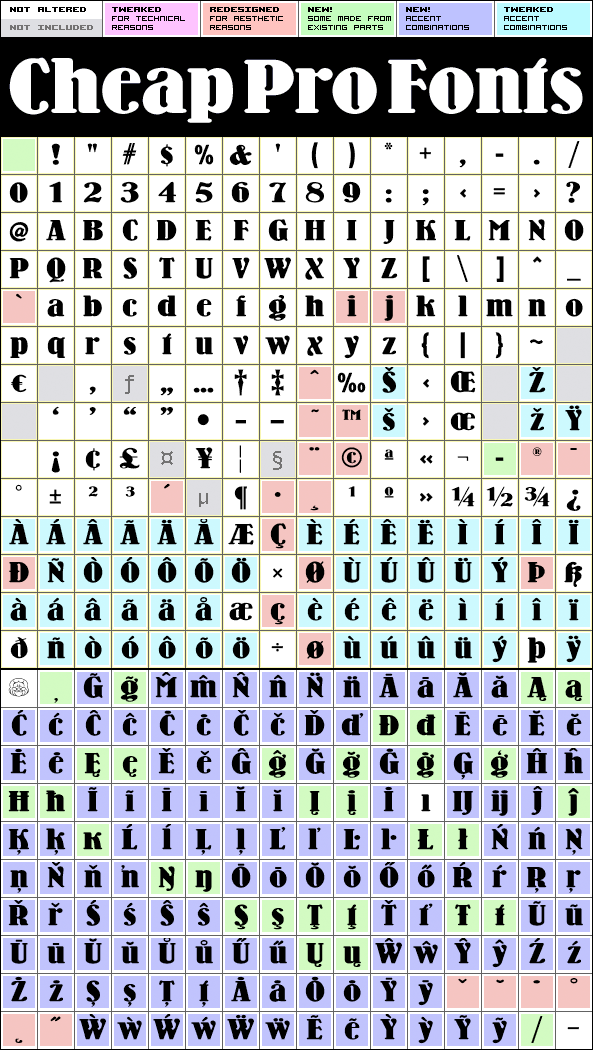
Wooden Nickel NF Pro
Wooden Nickel NF Pro by Nick Curtis
Nick Curtis
A nice, black display face - for a retro/western poster look. I have kept the quirky "t", increased the dot above "i" and "j" slightly, improved the spacing/kerning and modified/added all the usual diacritics. A pretty easy reworking of a good quality font. :)
Nick Curtis says: "An old favorite, Bernhard Antique Bold Condensed, cleaned up and fattened up. Warm, charming, personable … suitable for any occasion."
Wooden Nickel NF Pro is a professionally reworked font that contains an extended character set for setting text in 65 languages requiring more than the basic A-Z!